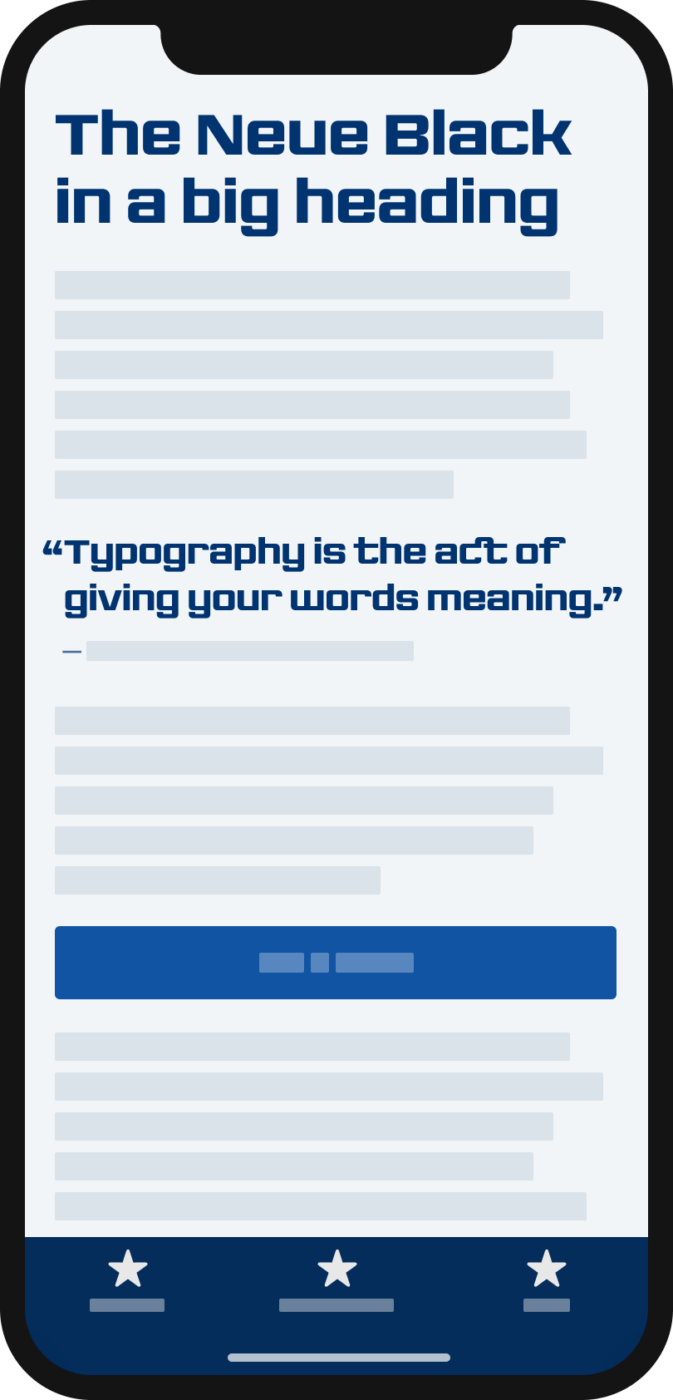
The sturdy sans-serif display typeface The Neue Black on a mobile phone in a headline and pull quote.
Display typeface
by Trés Seals at The League of Moveable Type
1 style
Black, obviously 😉
Best for
• Headings (display text)
• Long reading text (body text)
• User Interfaces (functional text)
Specialty
A set of over 25 special ligatures.
My thoughts on The Neue Black
I heard about Trés Seals, the designer of The Neue Black, in this podcast. The mission of his foundry Vocal Type Co. is to highlight stories of underrepresented groups of people through their catalog of historically-inspired typefaces. The Neue Black is based on the signage from the Chicago Freedom Movement, an advocacy campaign spearheaded by Martin Luther King Jr. and the Southern Christian Leadership Conference (SCLC).
Showing The Neue Black, it has a very robust, determined vibe. Stylistic alternates make it a bit softer.
Plenty of stylistic alternates and special ligatures (see st in robust) give you plenty of possibilities to adjust the style to your message.
Besides loving the idea behind Trés Seals’ foundry, I like how squarish, at times imperfect, and yet impacting The Neue Black appears. It’s not super polished, it’s robust. And this perfectly fits to the backstory – being determined, resisting, and insisting. It is best suited for large, short display text. The stylistic alternates give it a slightly softer tone. And I think it shows all its glory set in all caps.
The Neue Black looks so striking in all caps!
Look at that gorgeous exclamation mark!